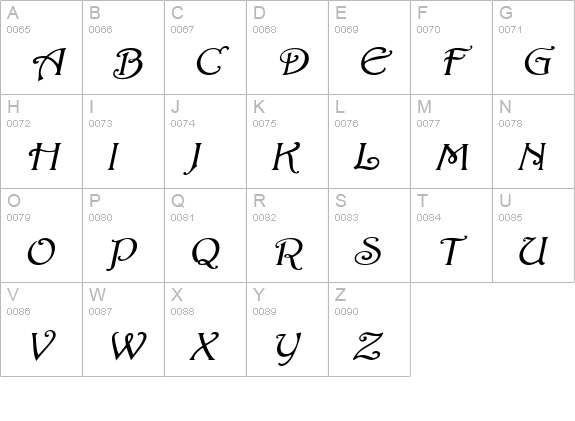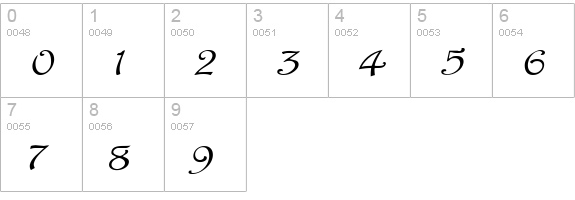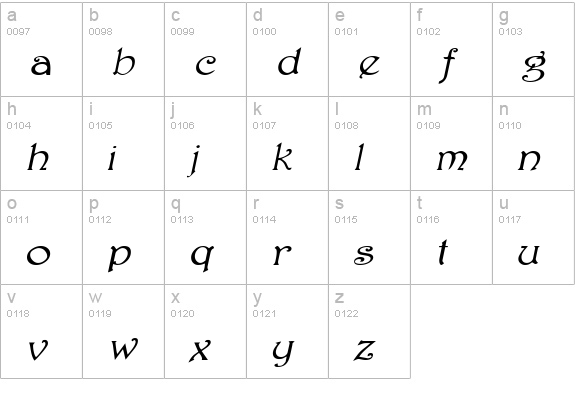
ParisianExtended Italic Font Details
ParisianExtended Italic is a distinctive, italic variant in the ParisianExtended typeface family \xE2\x80\x94 well suited to design and typography projects.
ParisianExtended Italic is a stunning and elegant font that embodies the timeless beauty and sophistication of Parisian design. With its elongated and gracefully slanted letterforms, this font effortlessly captures the essence of romance and charm. The ParisianExtended Italic font is characterized by its delicate curves and subtle flourishes, which add a touch of refinement to any project. Whether used for headlines, invitations, or branding materials, this font exudes a sense of luxury and exclusivity. What sets ParisianExtended Italic apart is not only its exquisite design, but also the fact that it is available for free. Yes, you read that right! This magnificent font can be freely downloaded from FontsMarket.com, allowing designers, creatives, and typographers to enjoy its beauty without any cost. Downloading the ParisianExtended Italic font is a breeze, and once you have it in your collection, the possibilities are endless. Its versatility allows it to be used in a variety of contexts, from fashion magazines to wedding stationery, from high-end branding to editorial layouts. So why wait? Dive into the world of ParisianExtended Italic and experience the elegance and sophistication it brings to your designs. Download it for free today at FontsMarket.com and let your creativity soar with this exquisite typeface.